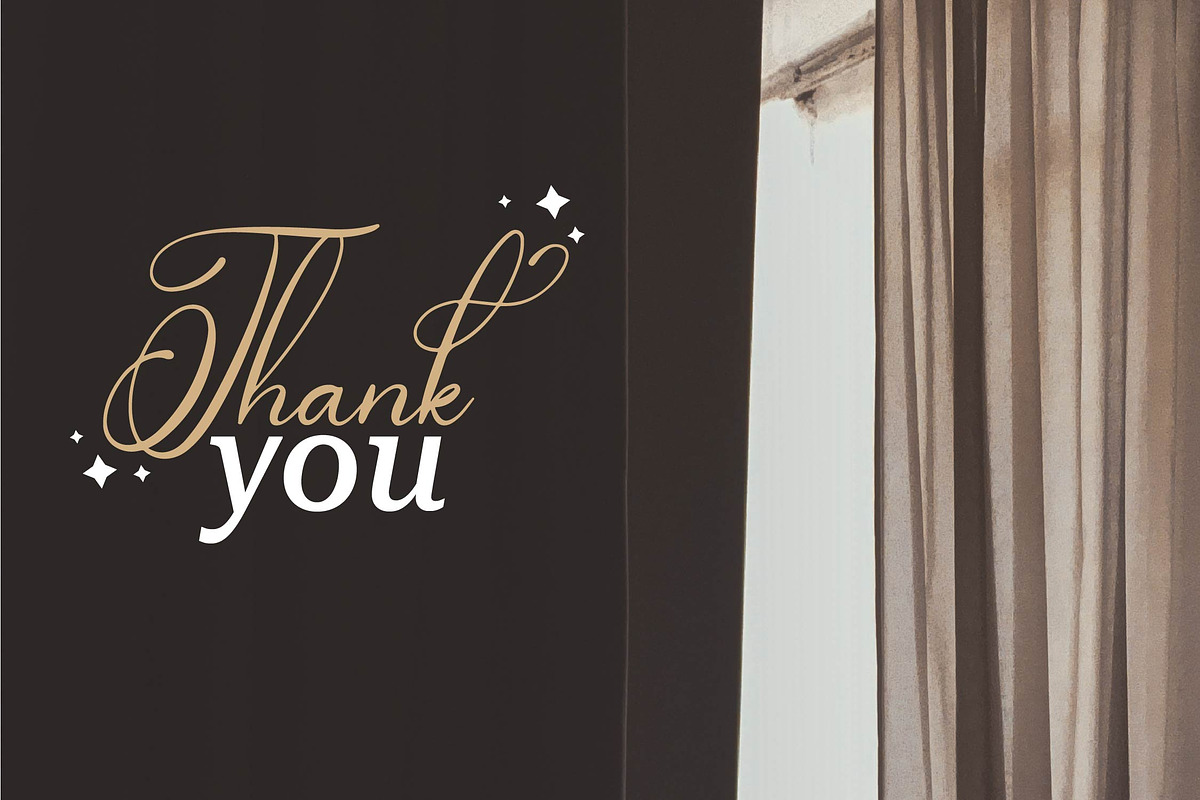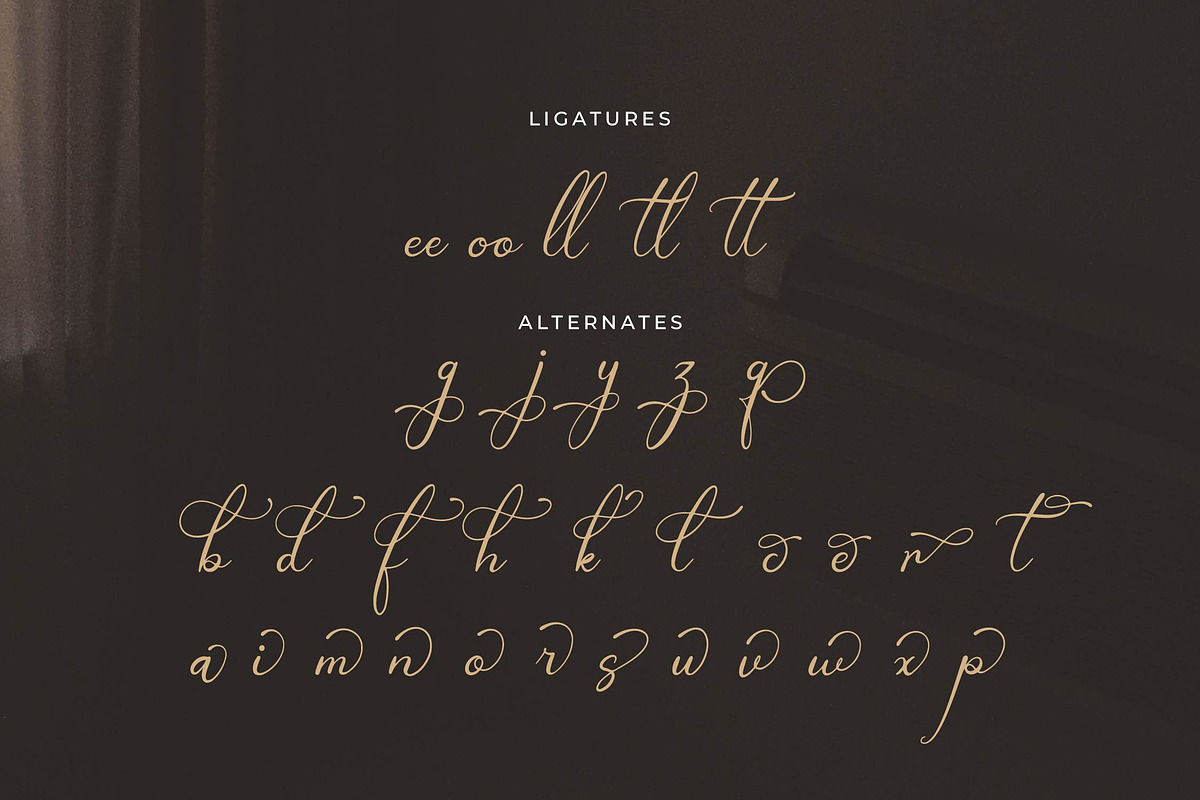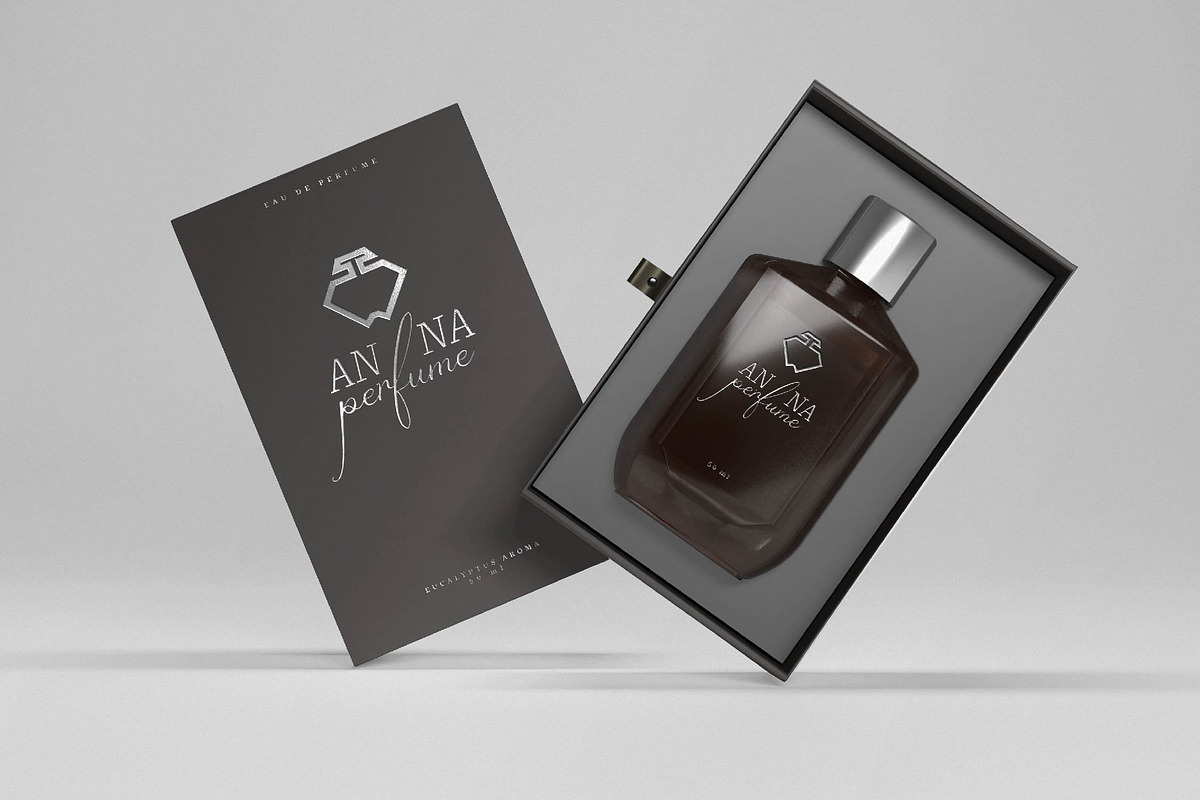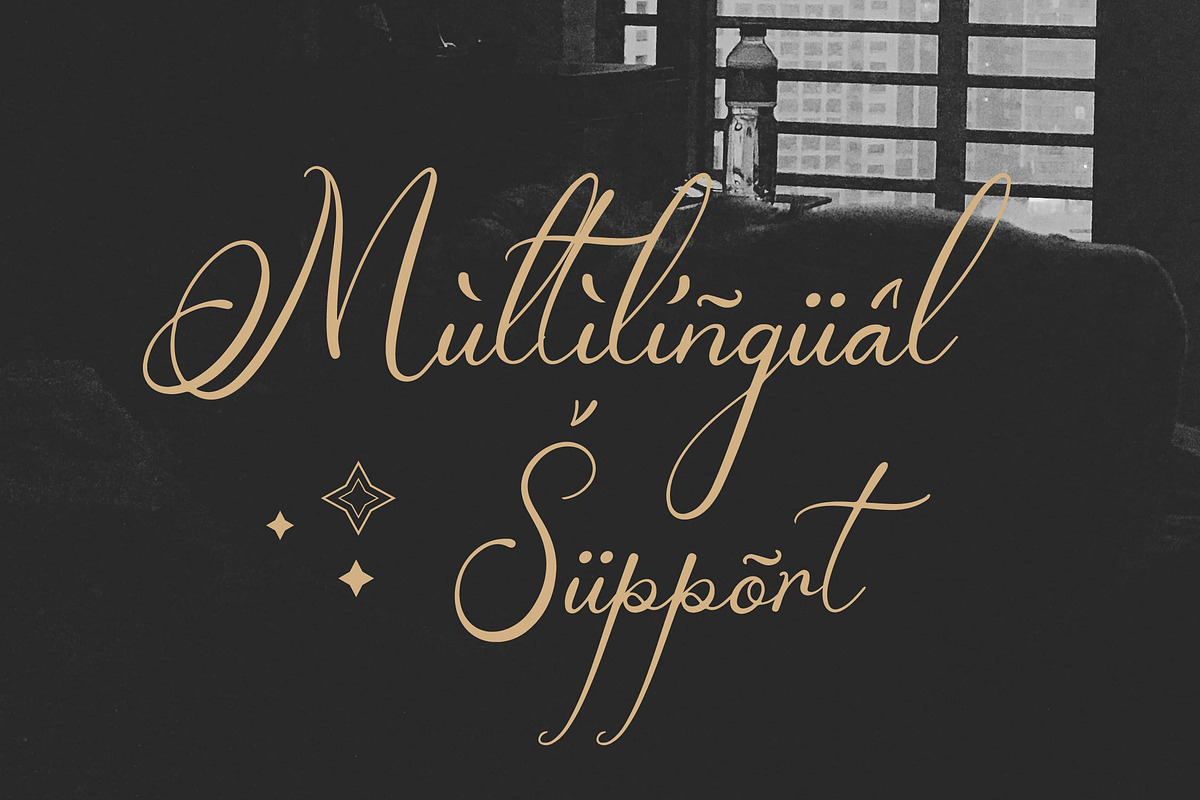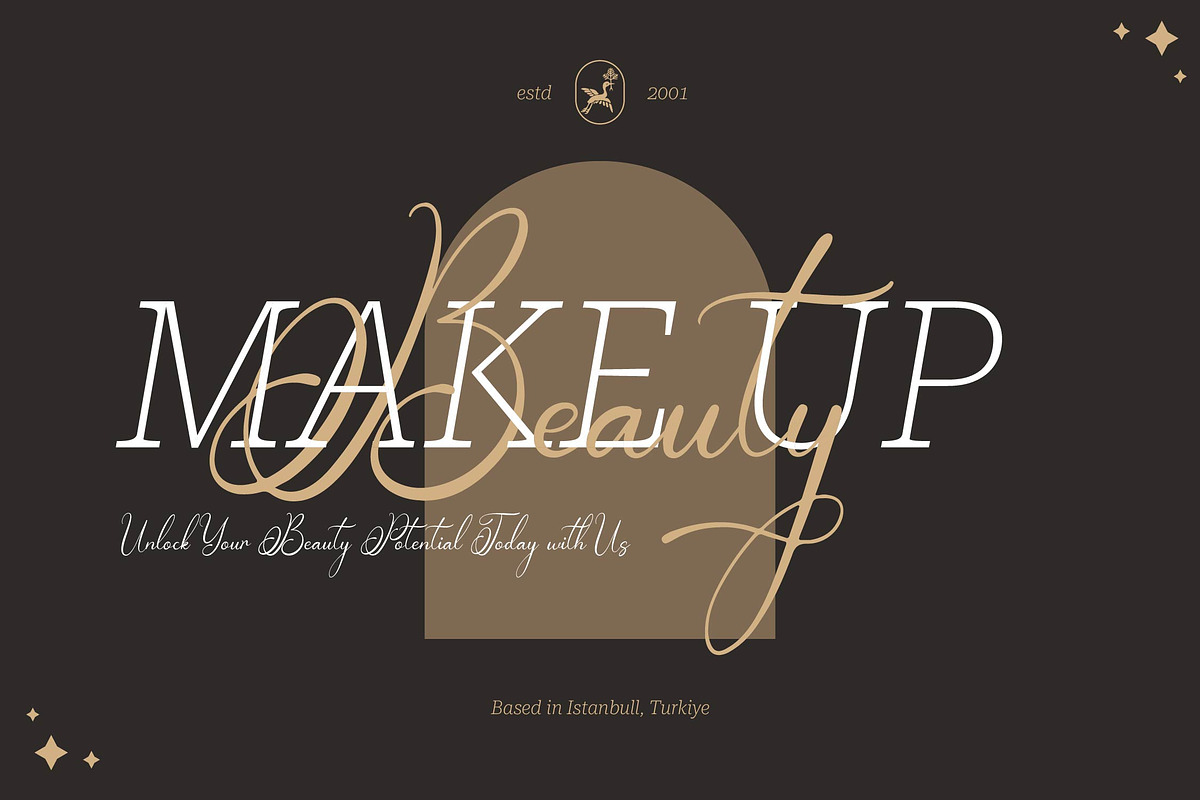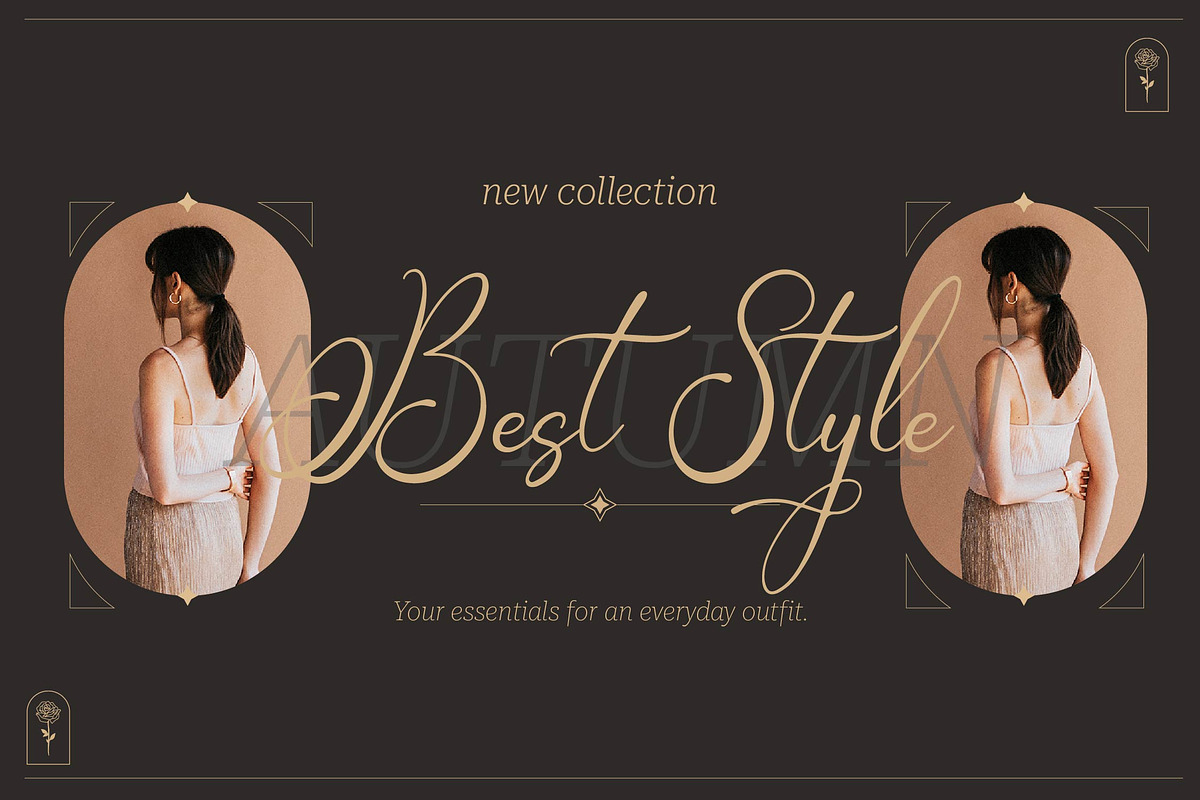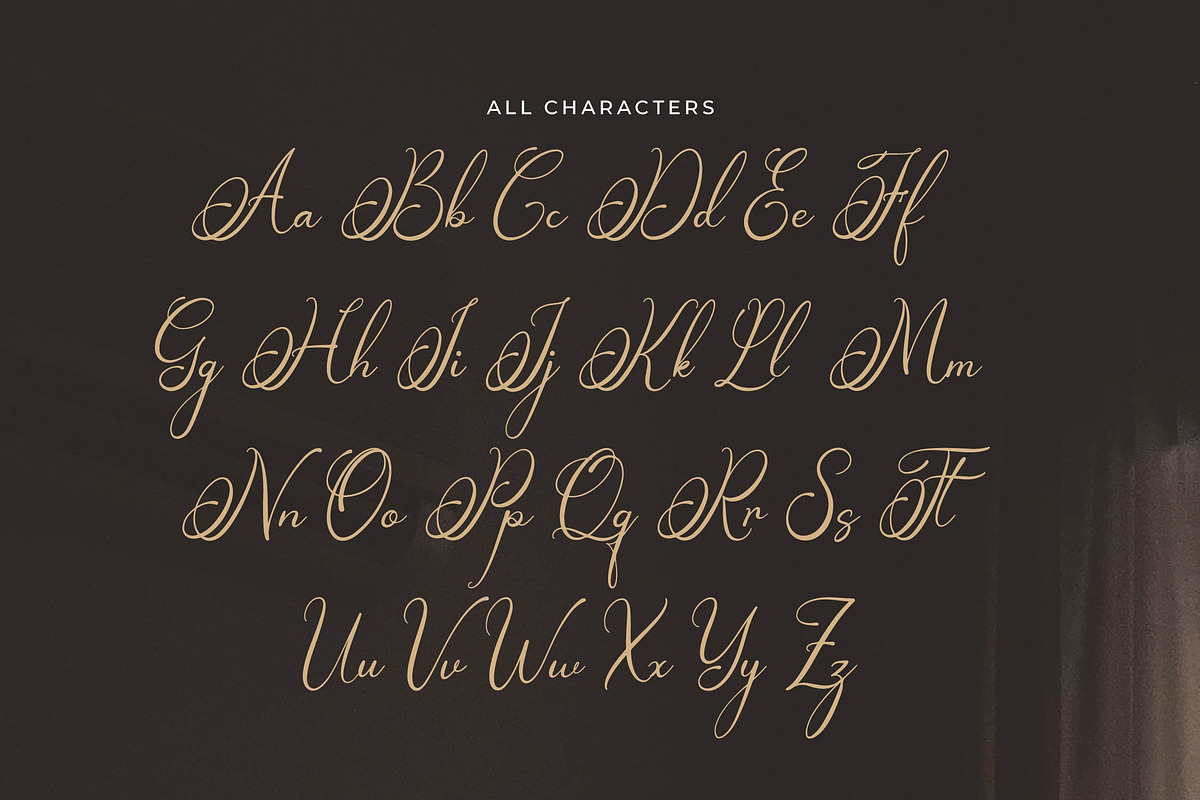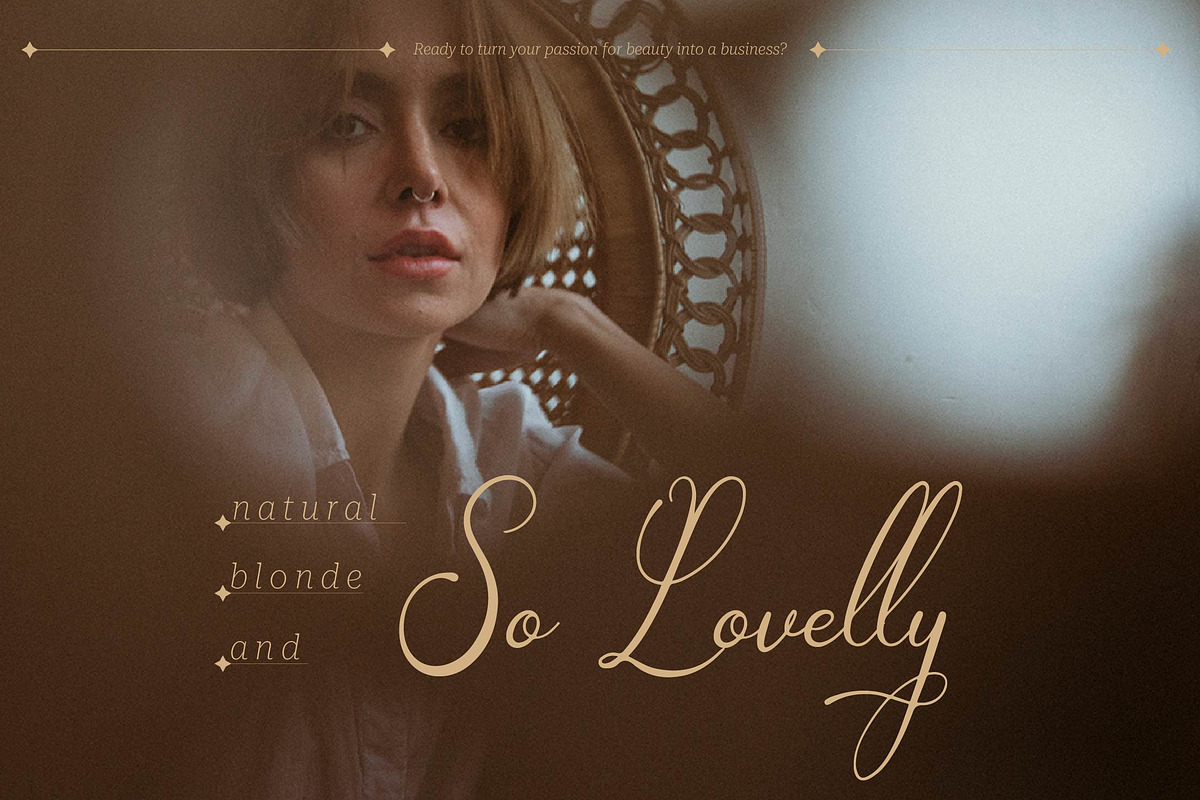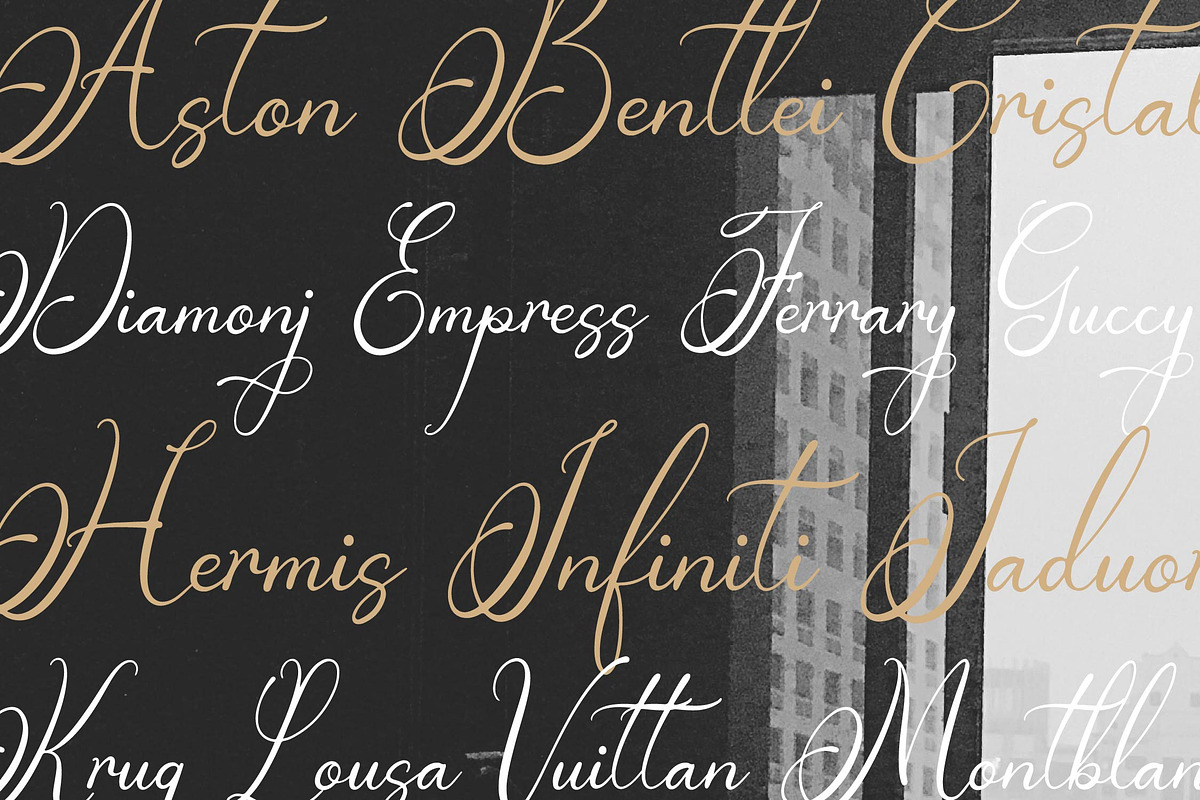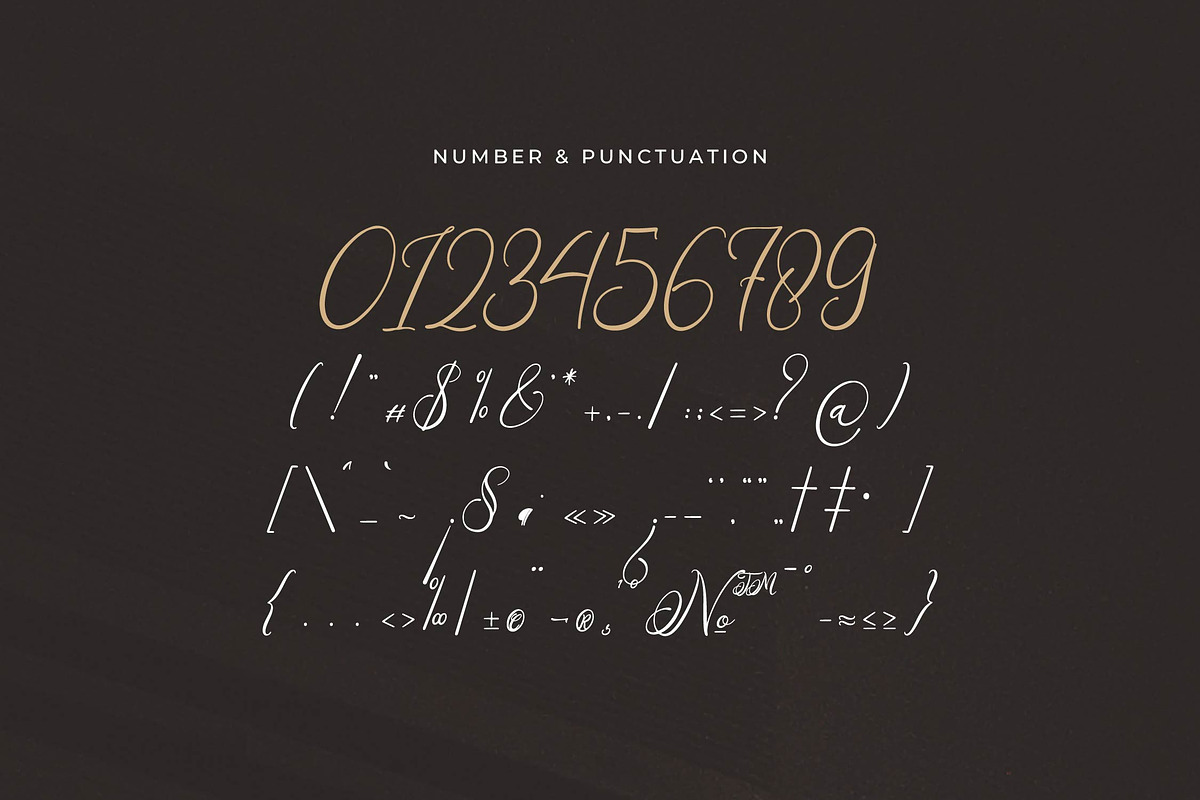
Teofandin Levantamy | Wedding Script
Teofandin Levantamy | Wedding Calligraphy Script, from Denustudios, suitable for any projects such as: logos, branding projects, homeware designs, product packaging, mugs, quotes, posters, shopping bags, t-shirts, book covers, name card, invitation cards, greeting cards, label, photography, watermark, special events, and all your other lovely projects that need a beautiful script taste.